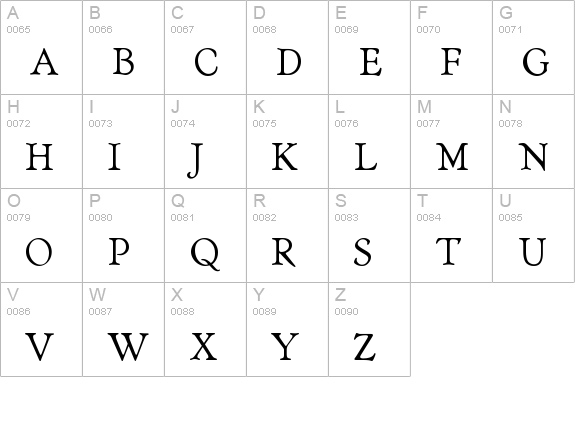
ArtcraftURWTReg Font Details
ArtcraftURWTReg is a stunning and versatile font that exudes elegance and sophistication. With its unique blend of modern and classic design elements, this font is perfect for a wide range of creative projects, from branding to editorial design. The clean lines and balanced proportions of ArtcraftURWTReg make it both easy to read and visually appealing, making it an ideal choice for everything from logos to packaging. What sets ArtcraftURWTReg apart is its fantastic attention to detail and high level of craftsmanship. Each character is meticulously crafted to ensure a cohesive and harmonious look across all text. The font's versatility means it can be used in a variety of settings, from formal invitations to social media graphics. And the best part? ArtcraftURWTReg is available for free download at FontsMarket.com. So whether you're a graphic designer looking to add a touch of elegance to your projects or a business owner in need of a sophisticated font for branding, ArtcraftURWTReg is the perfect choice. Download it today and let your creativity shine with this exceptional font.